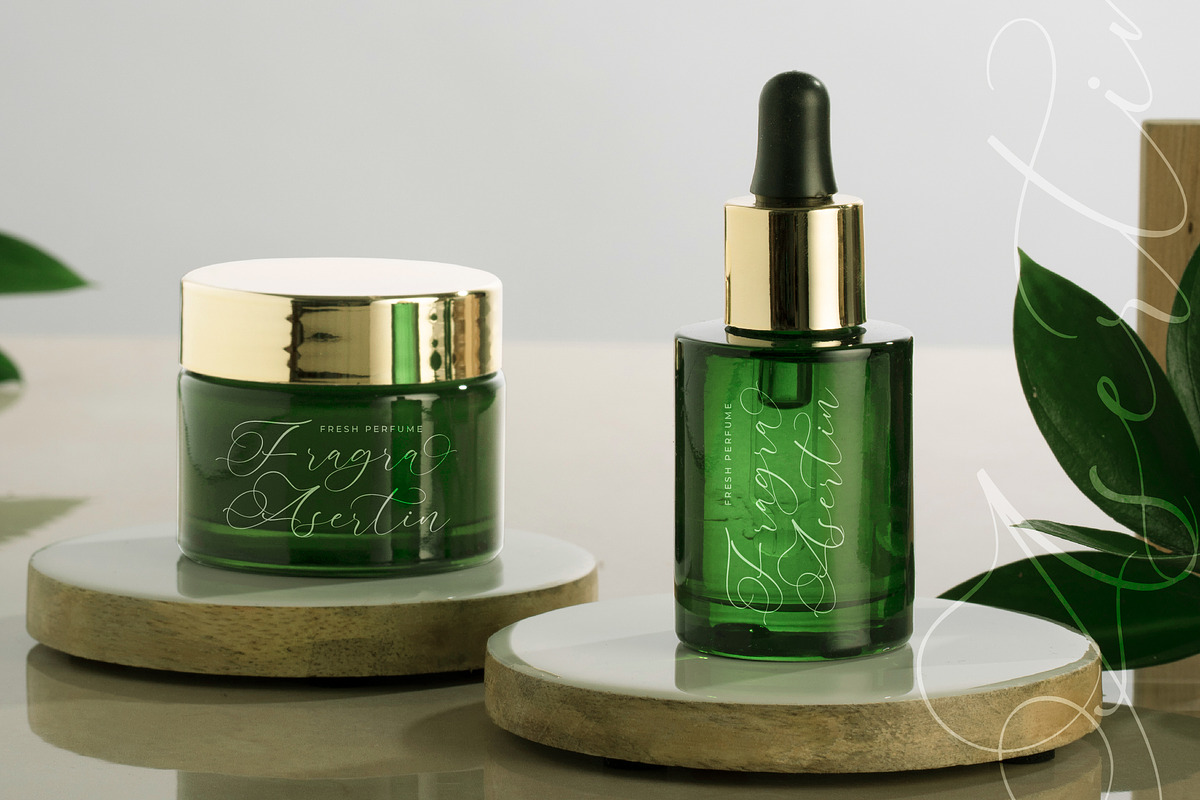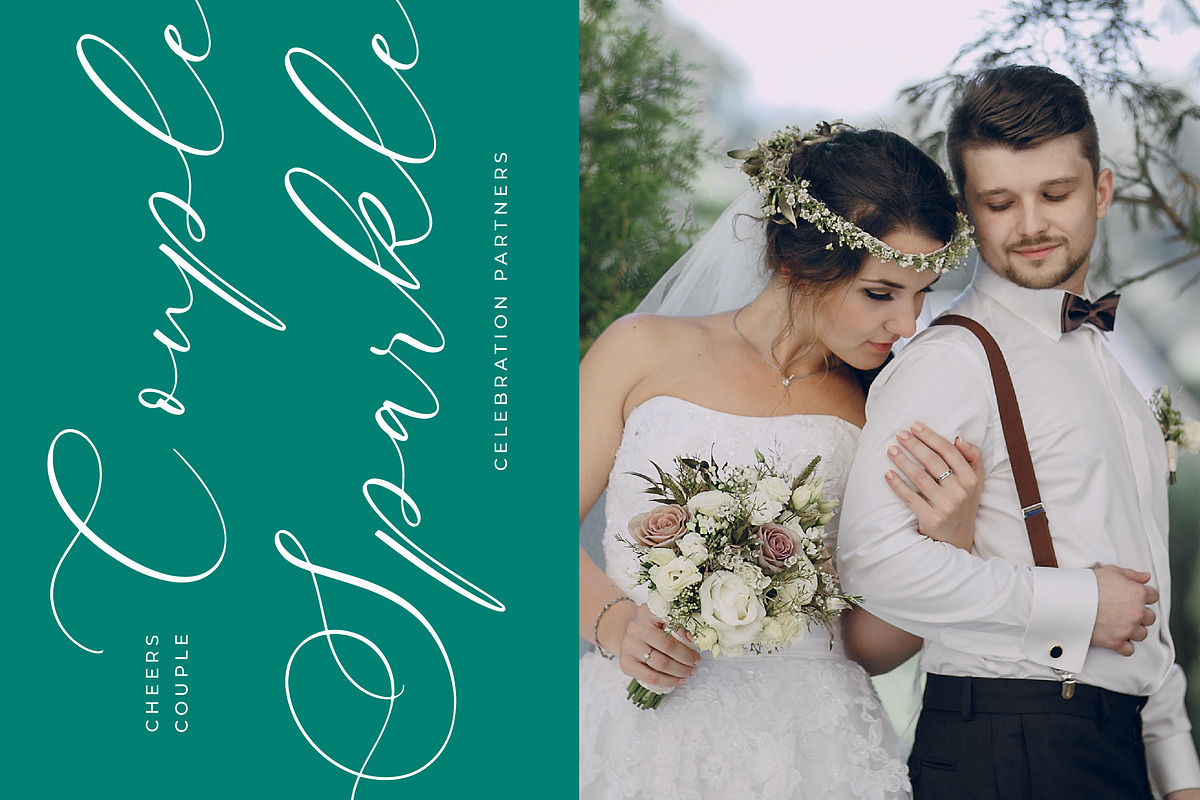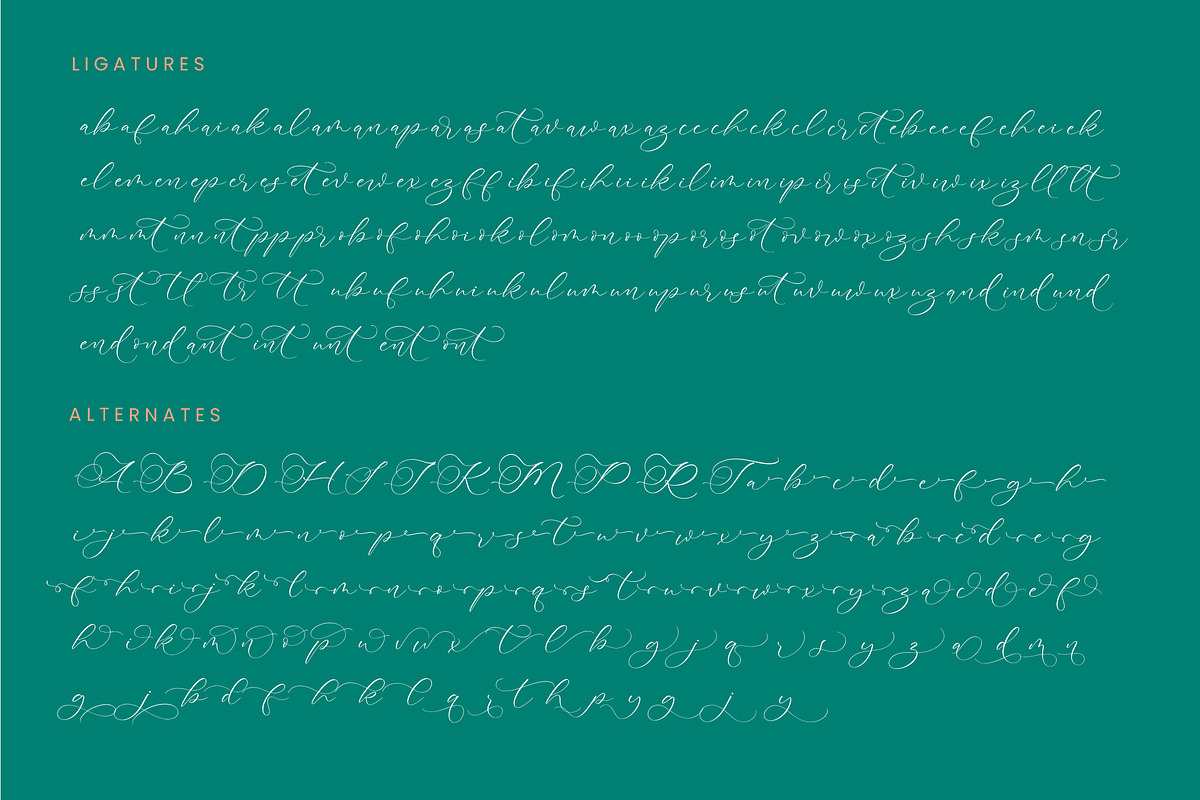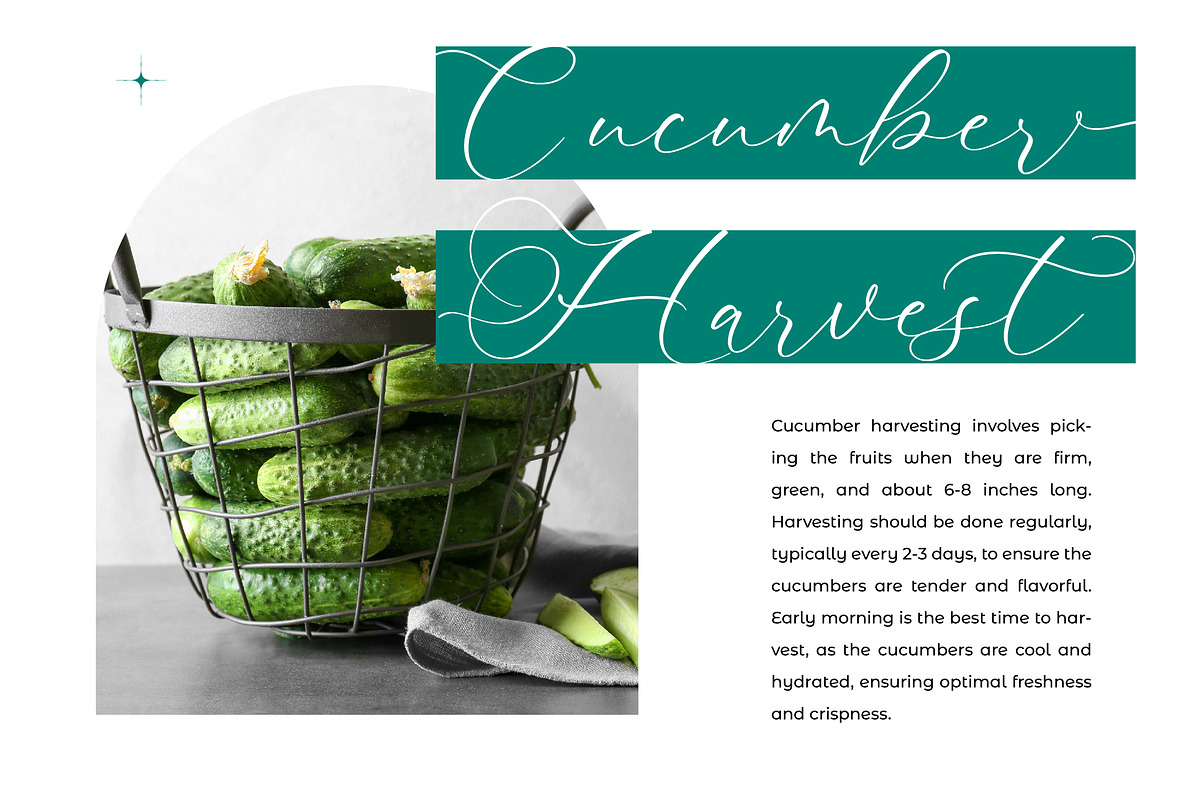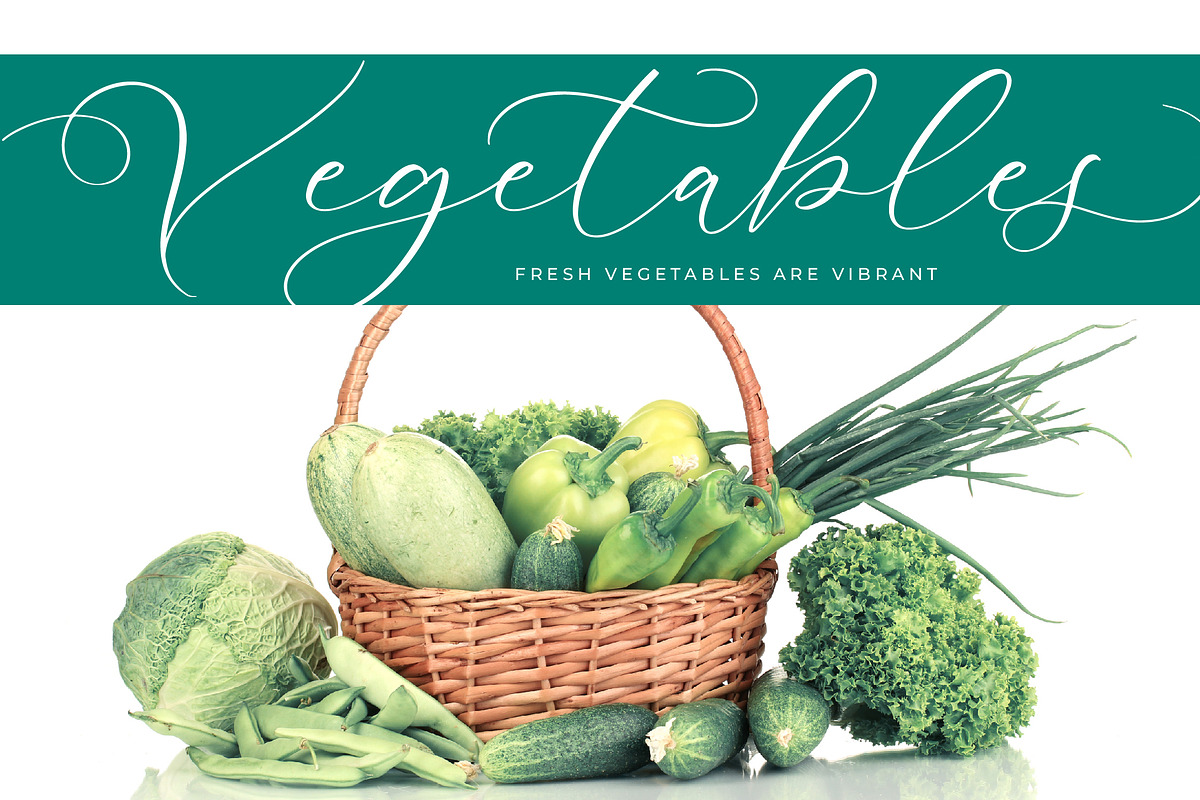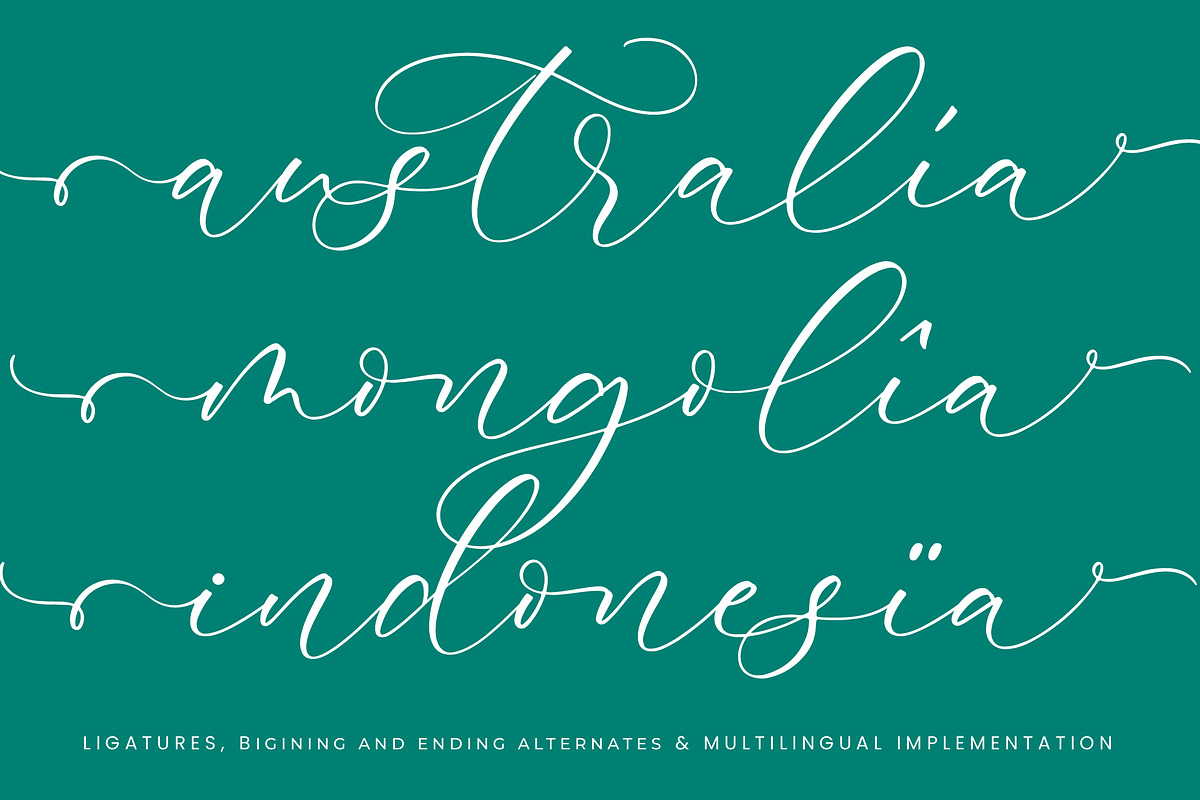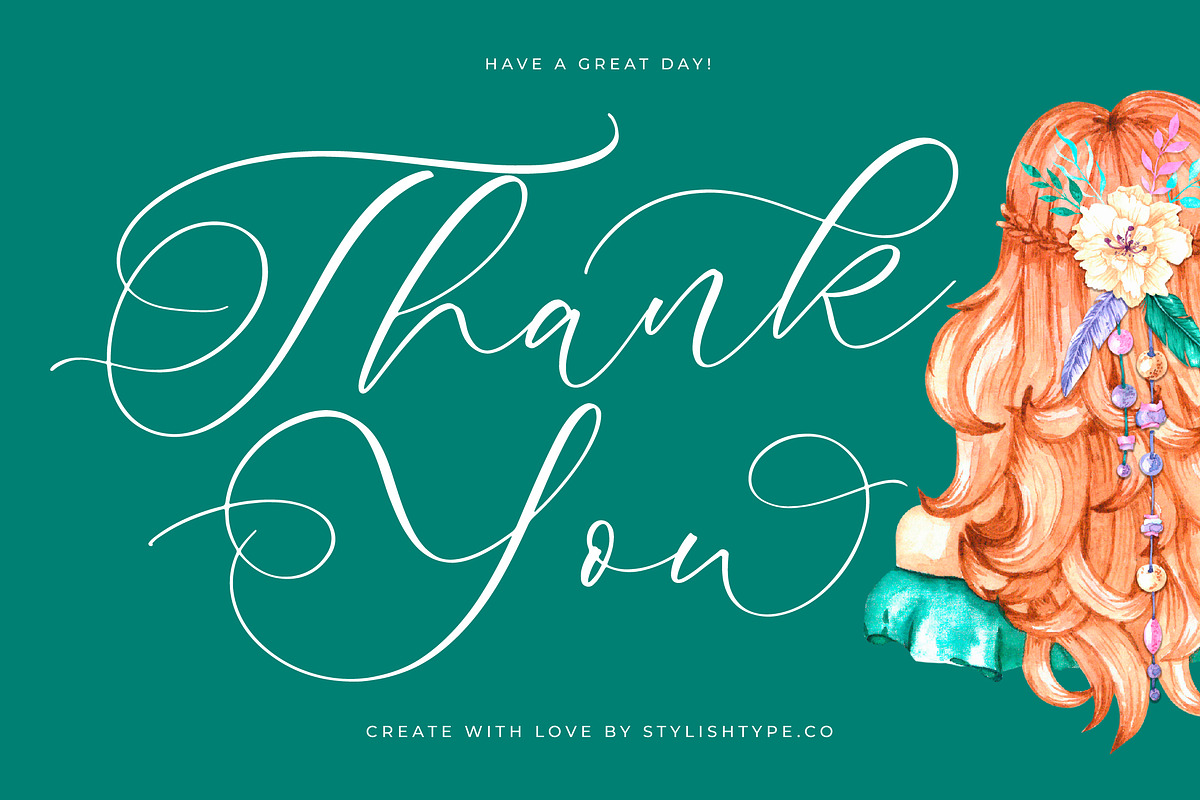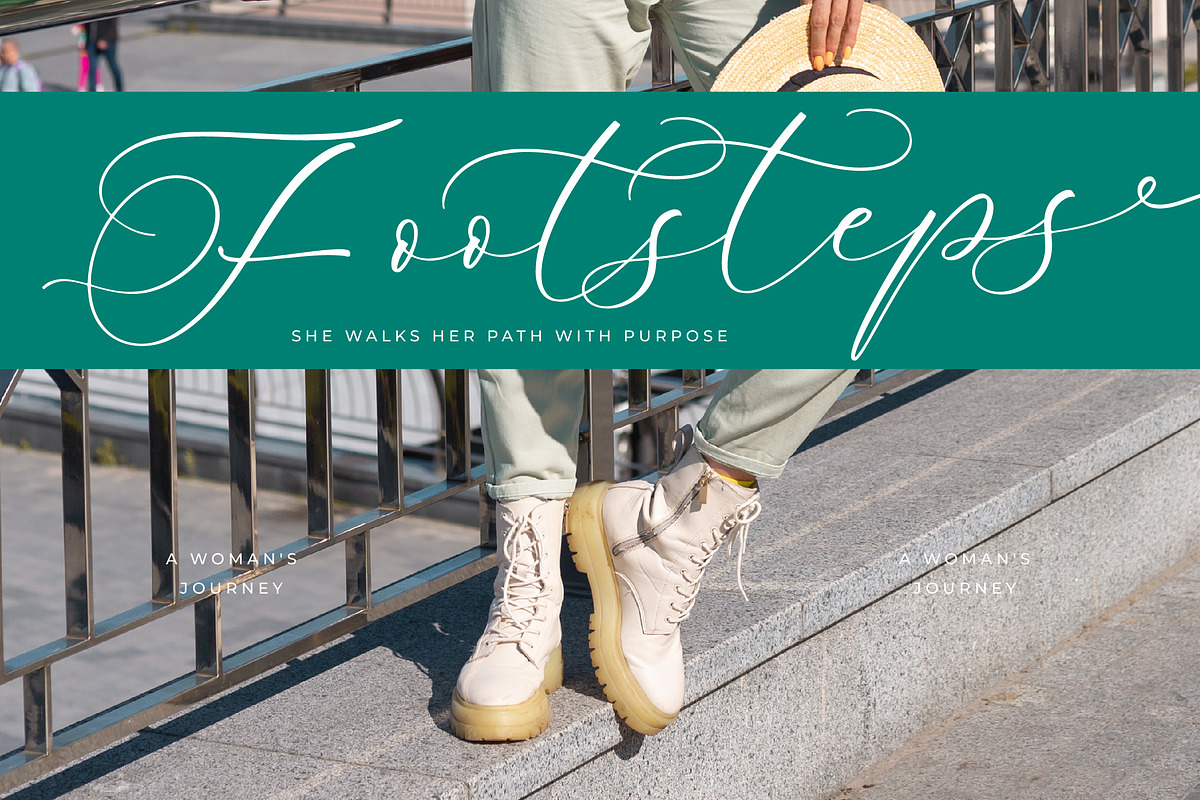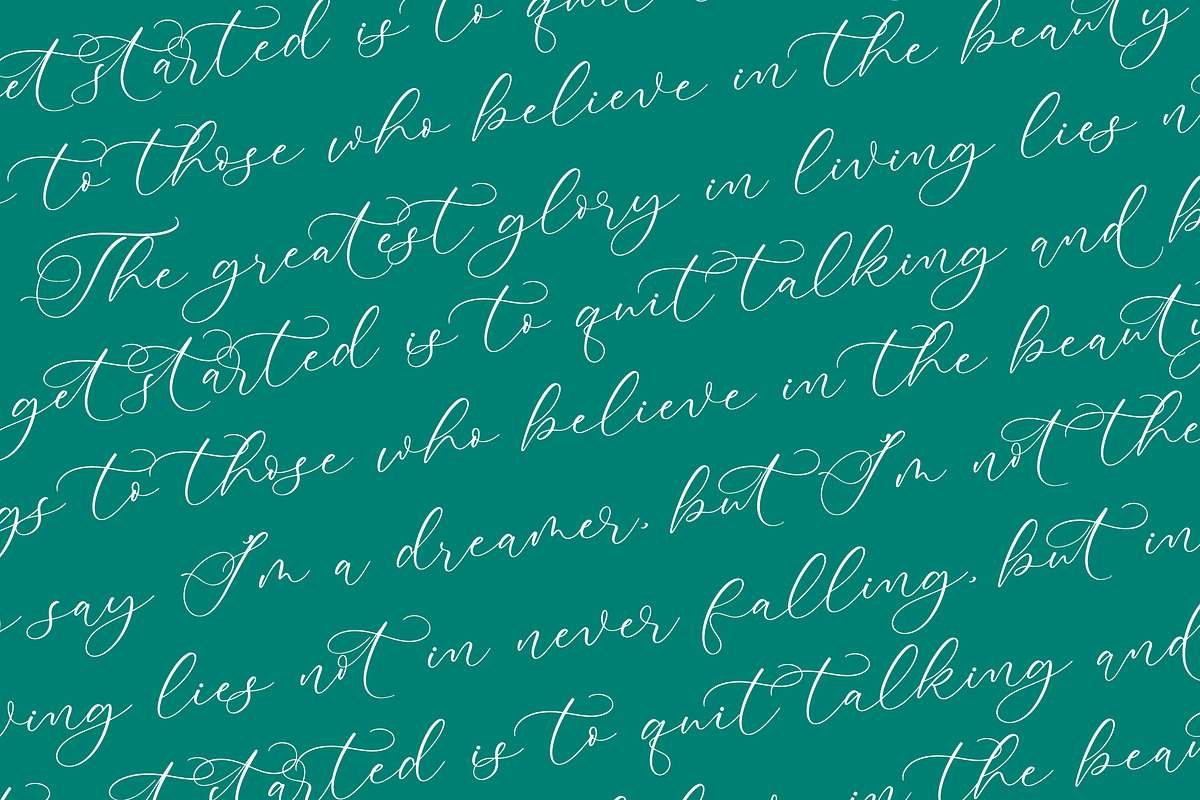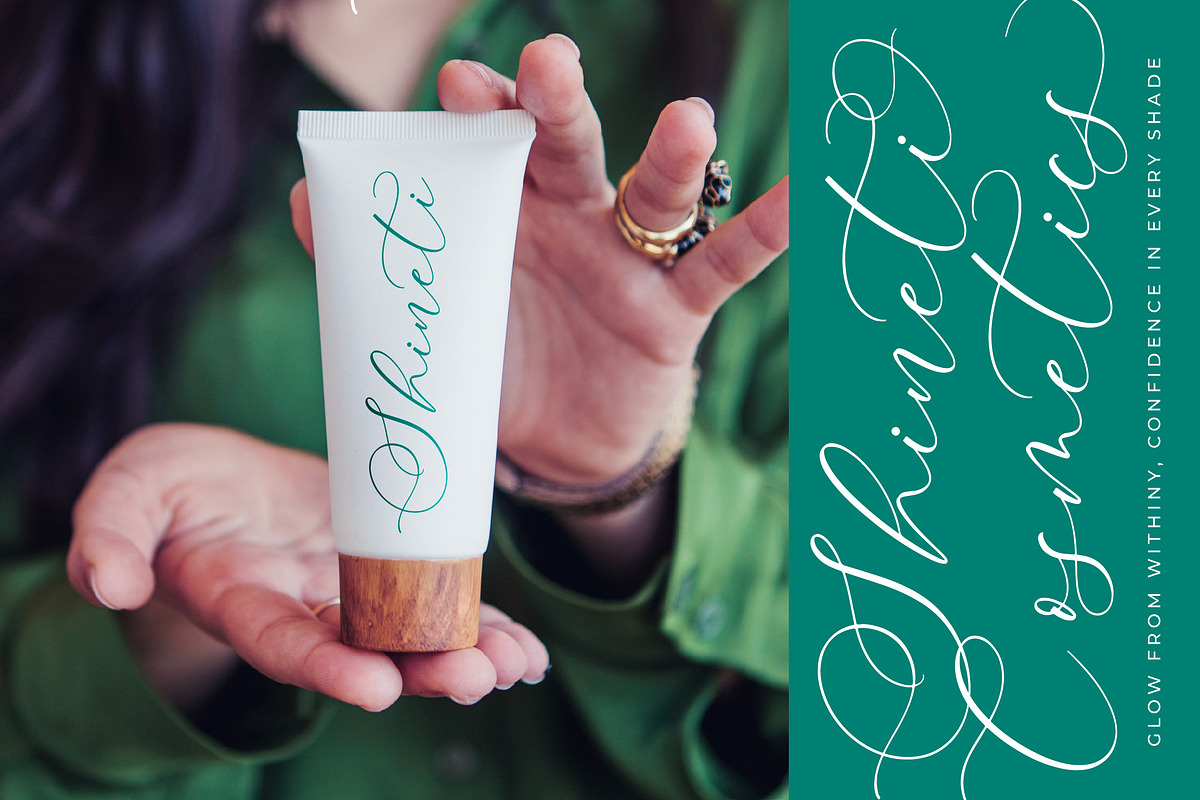
Avonta Qintani Stylish Calligraphy
Avonta Qintani - Stylish Calligraphy Font , from Stylishtype.Co , Suitable for any projects such as: logos, branding projects, homeware designs, product packaging, mugs, quotes, posters, shopping bags, t-shirts, book covers, name card, invitation cards, greeting cards, label, photography, watermark, special events, and all your other luxury and beautiful projects that need a Luxury Script taste.
- 117 Ligature 108 Alternates & 7 Swashes